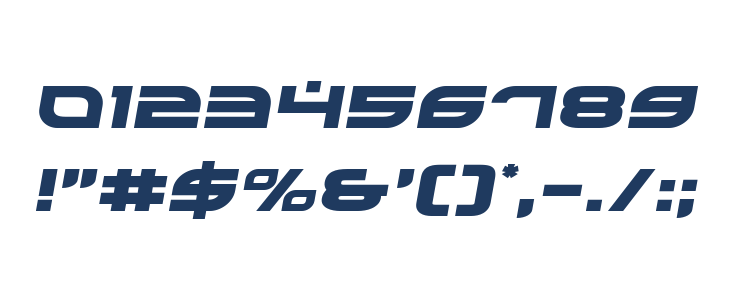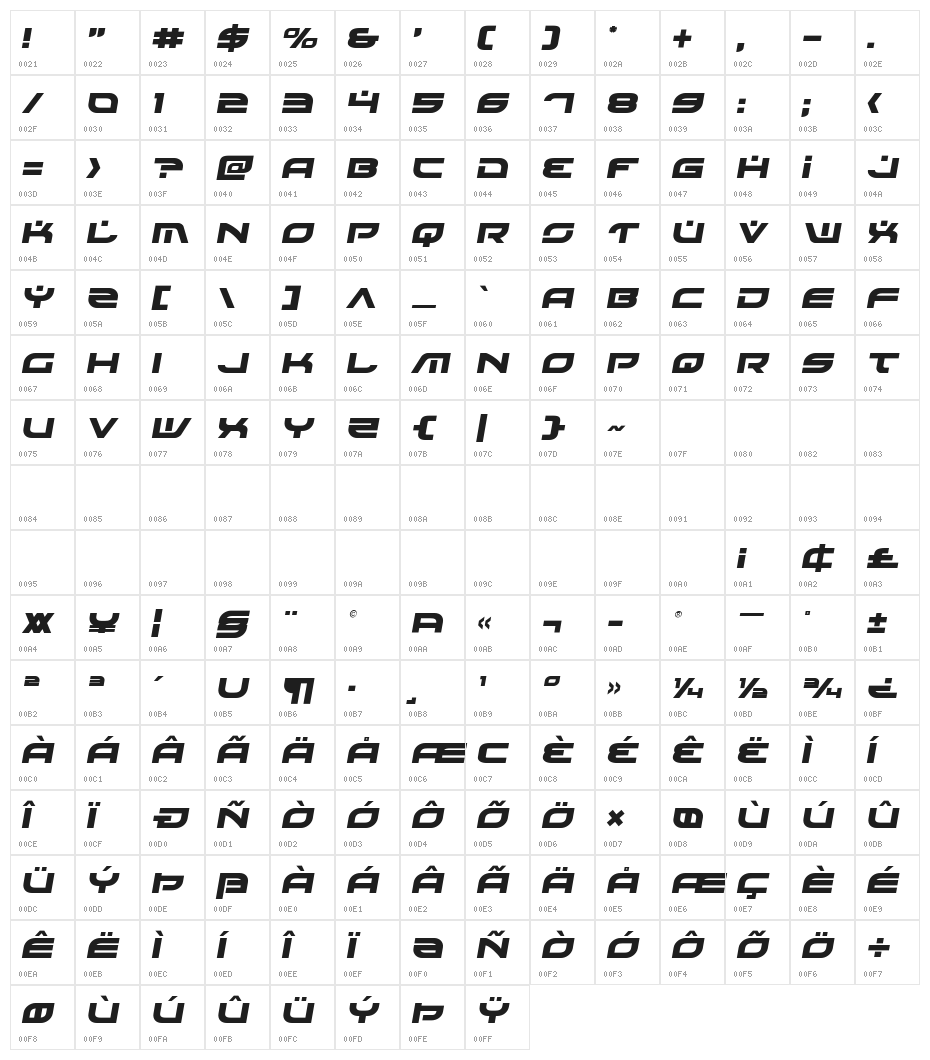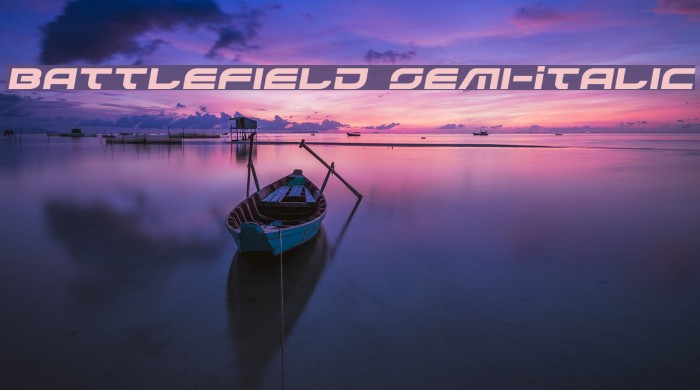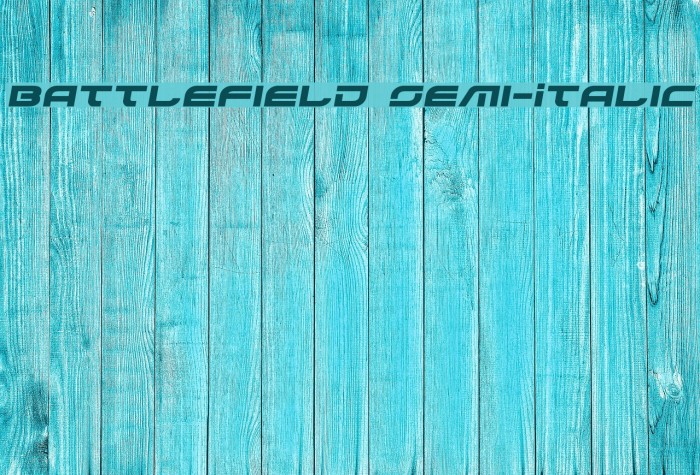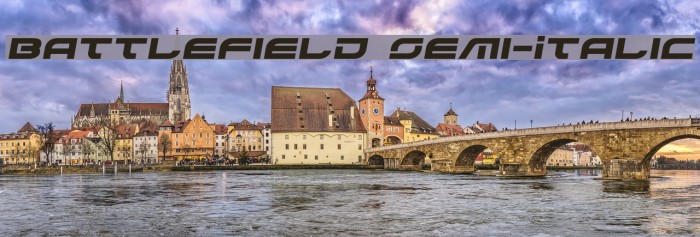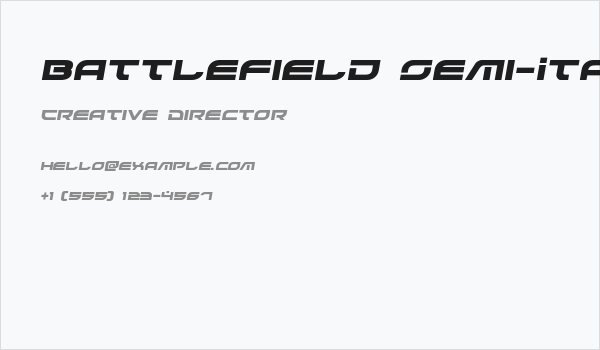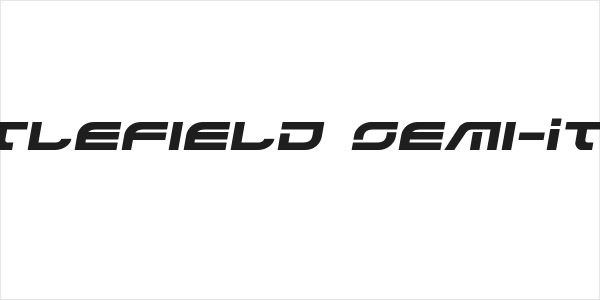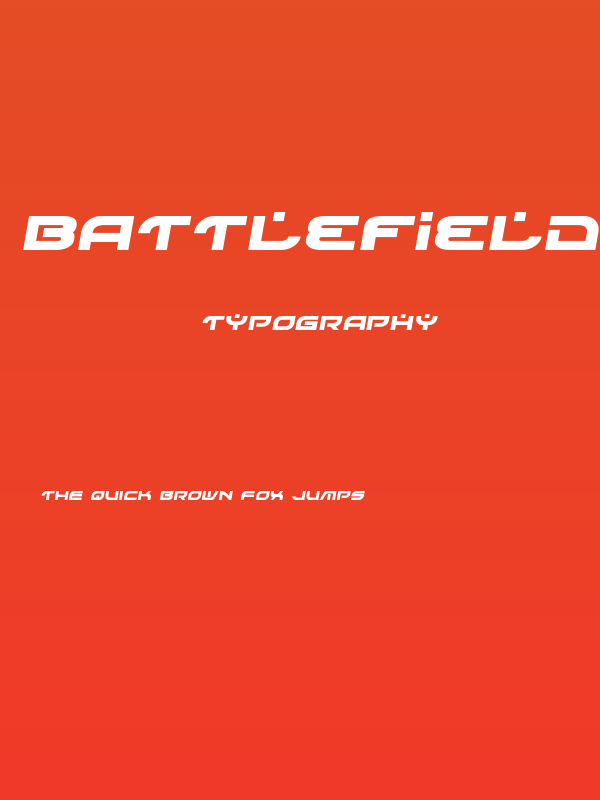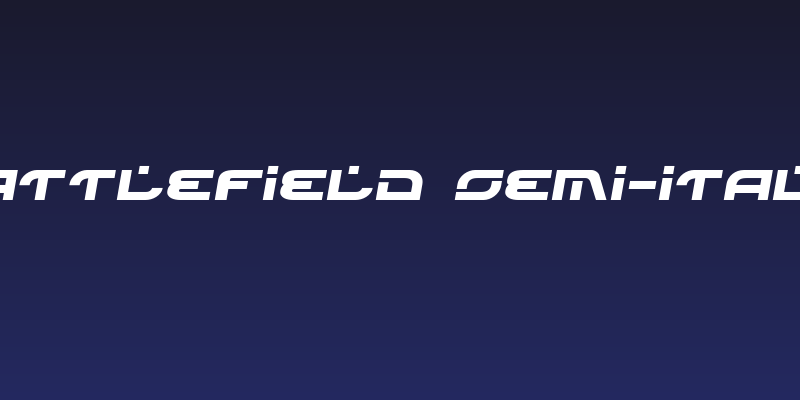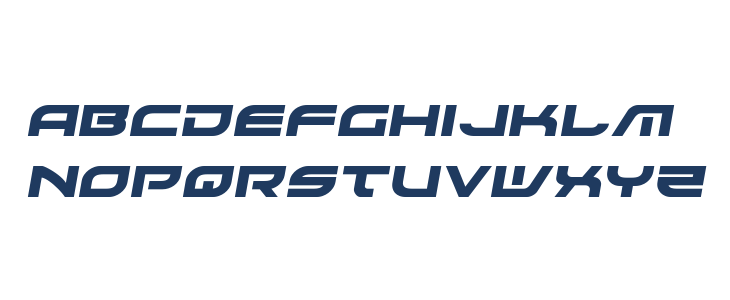
Battlefield Semi-Italic Font
Battlefield Semi-Italic Description
This font features a bold and dynamic design with a futuristic and sporty aesthetic. The characters are slightly italicized, giving them a sense of motion and speed. The strokes are thick and consistent, providing a strong visual impact. The overall style is modern and sleek, with a slight slant that enhances its energetic appearance. The uppercase and lowercase letters maintain a uniform style, with distinctive angular cuts and sharp edges that add to its contemporary feel. The numbers and special characters are equally bold and match the overall design, making it suitable for attention-grabbing headlines and branding.
| Proposed Projects | Ideal for sports branding, futuristic designs, video game titles, and dynamic advertising campaigns. |